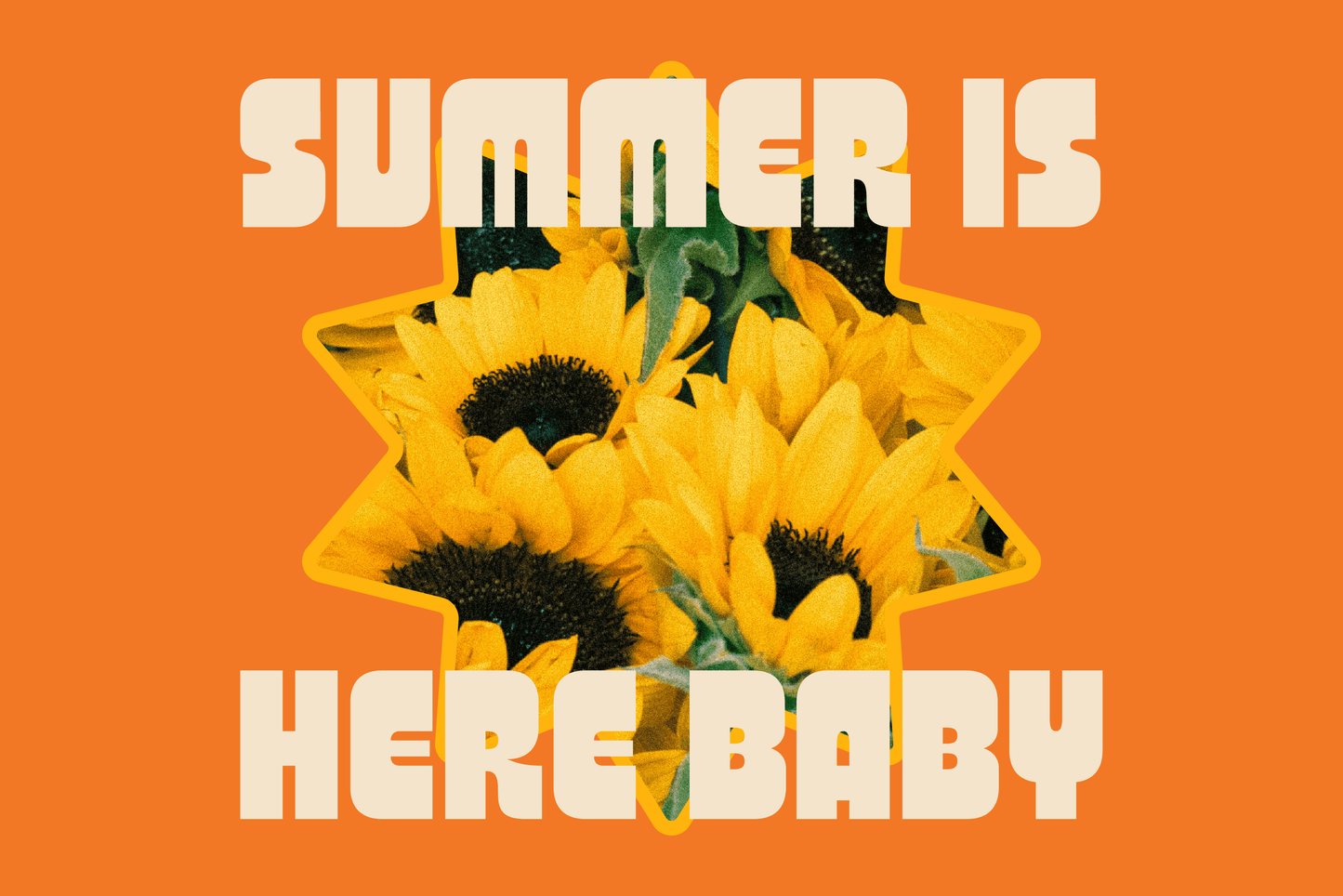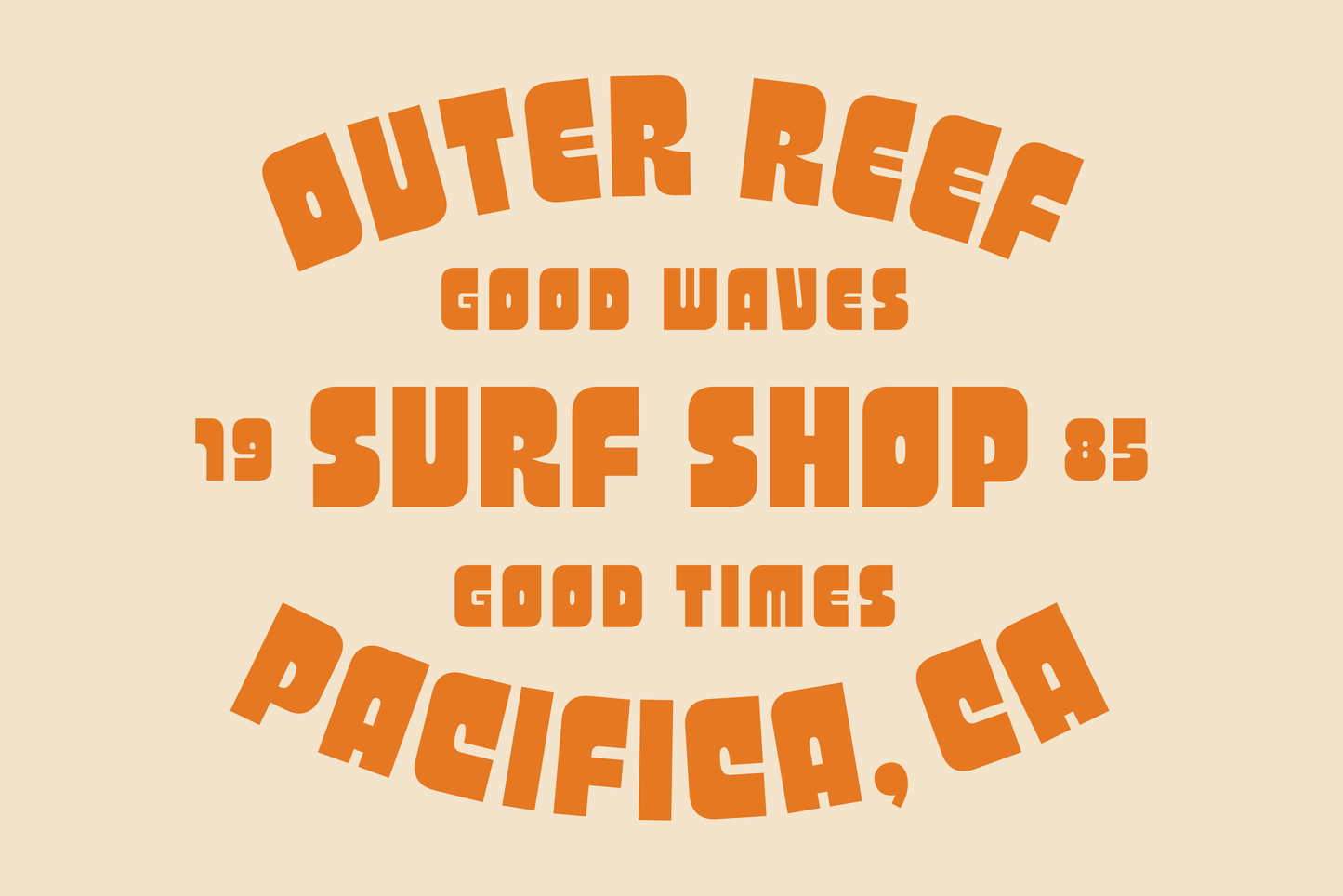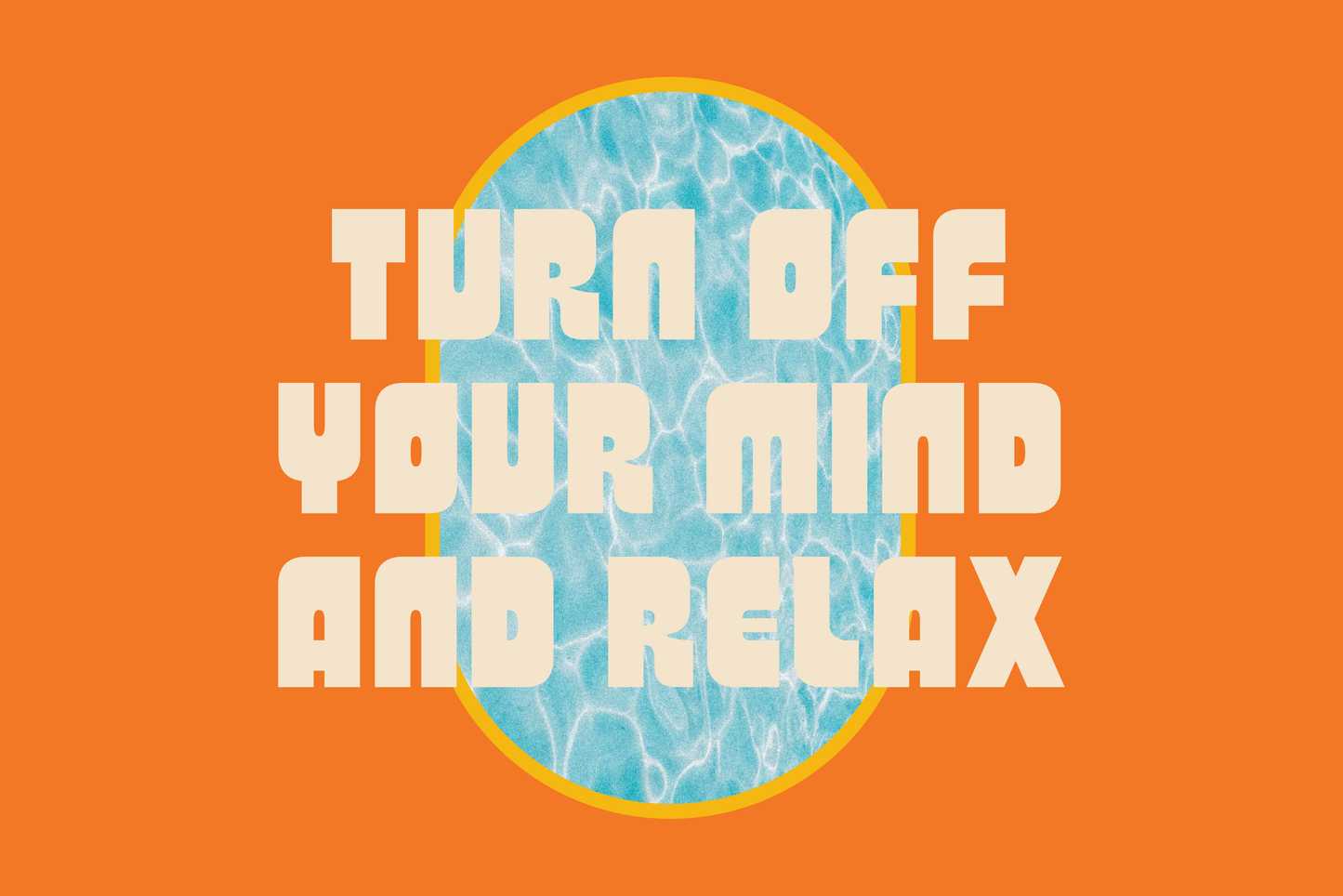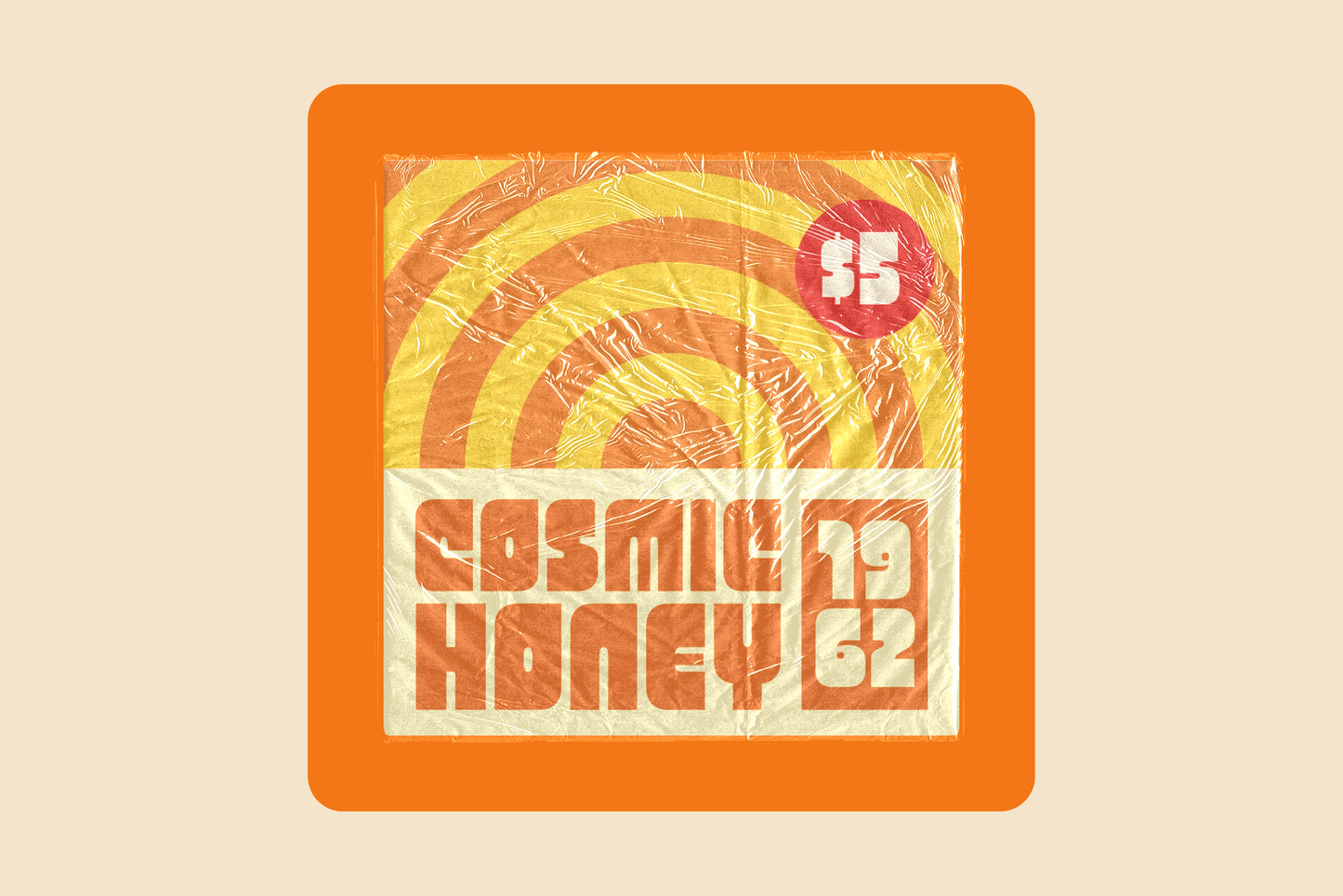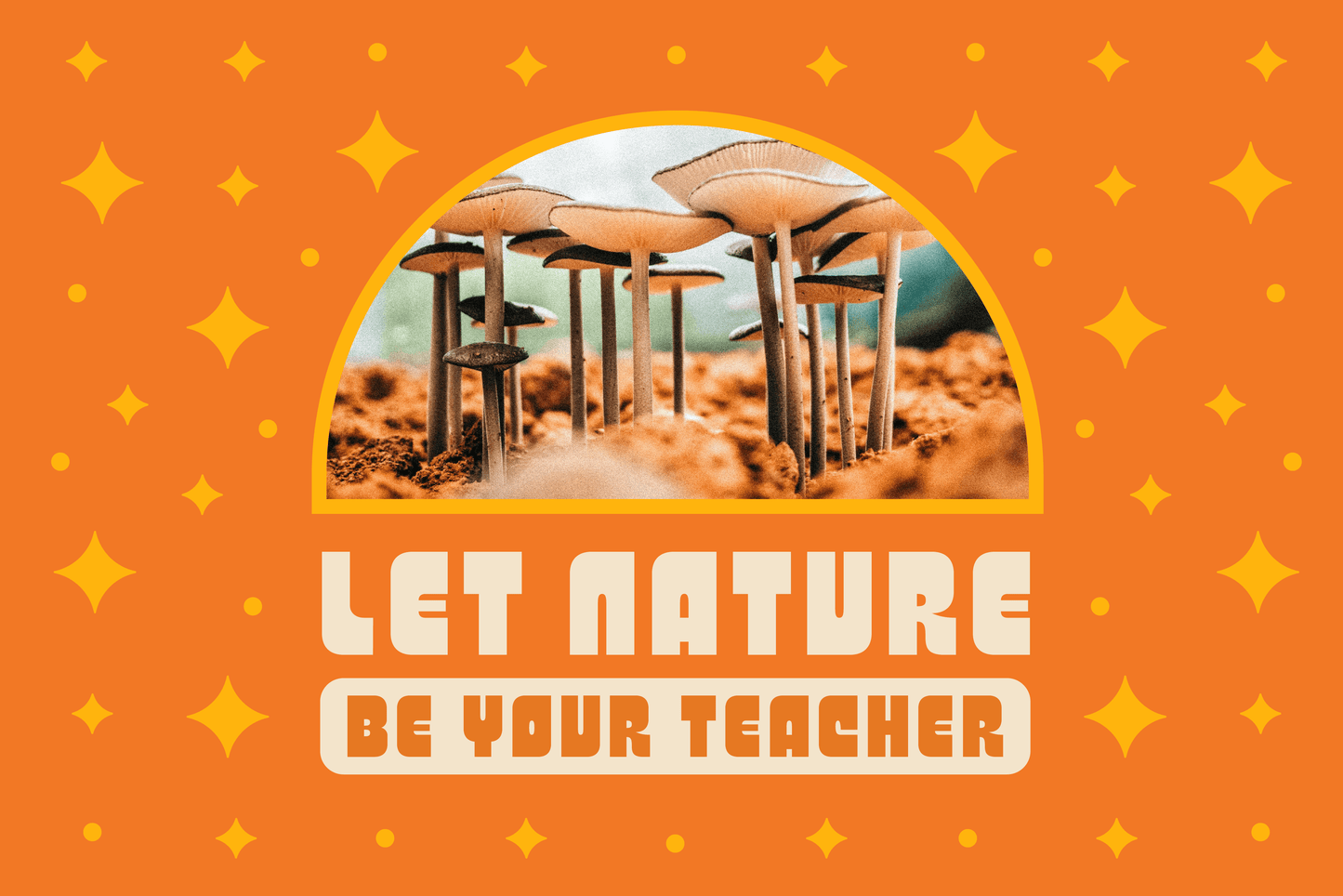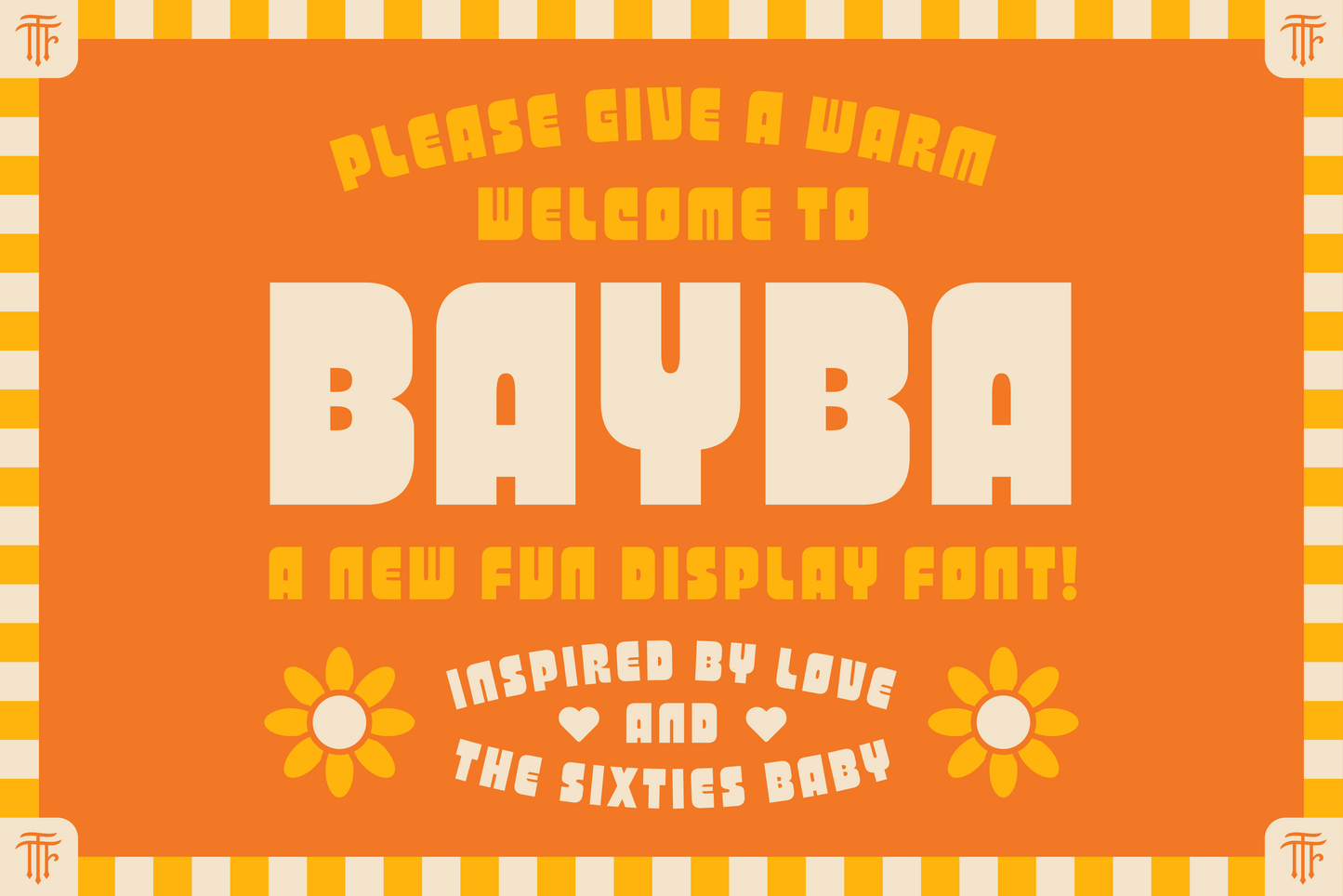
Introducing Bayba, the groovy display font that channels the spirit of love and the swinging sixties! Immerse yourself in the vibrant era with Bayba's friendly, bold, rounded letterforms and tight counters, bringing a joyful and carefree vibe to your projects. Let Bayba transport you to a time of peace, love, and creativity.